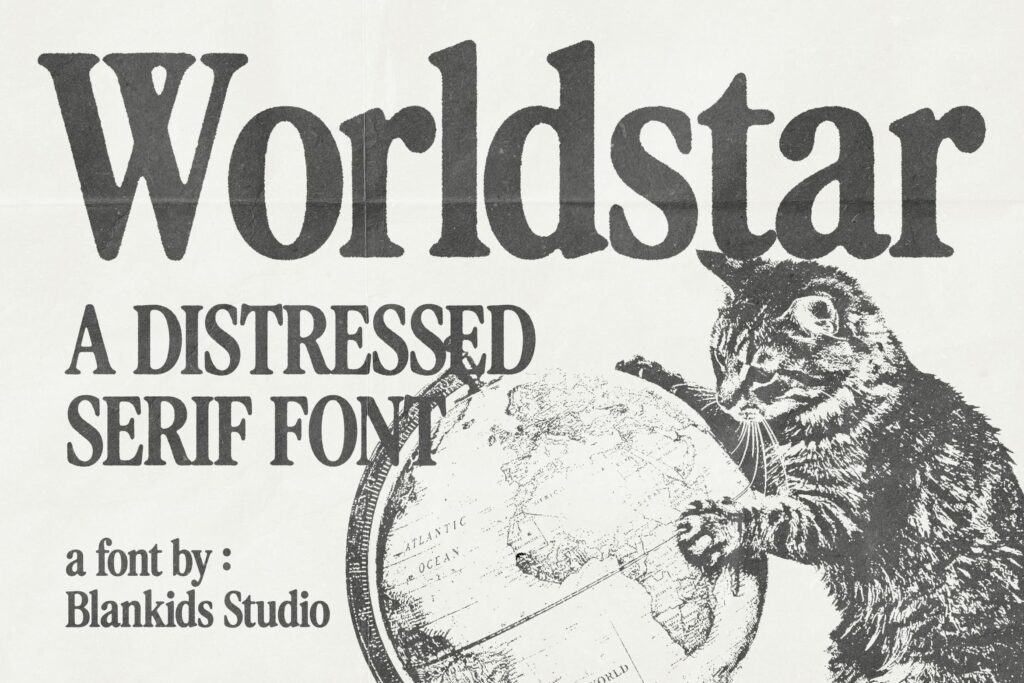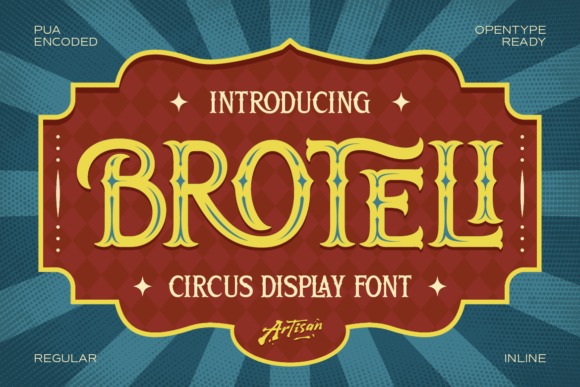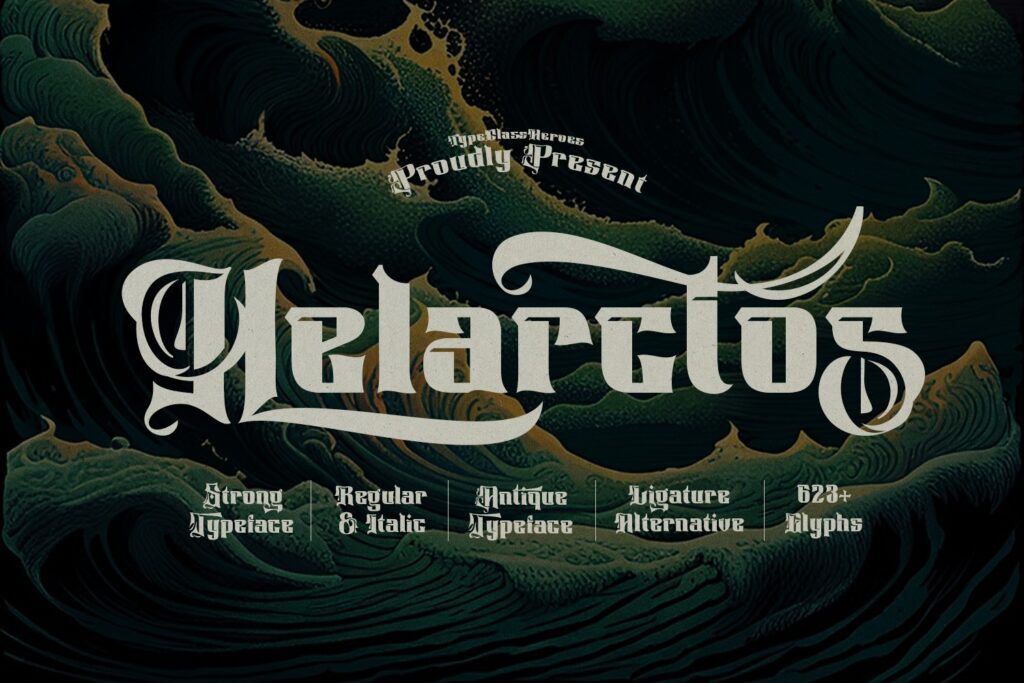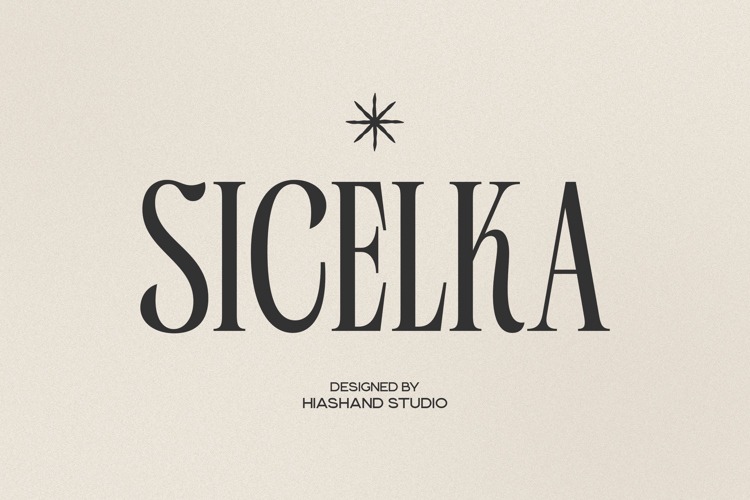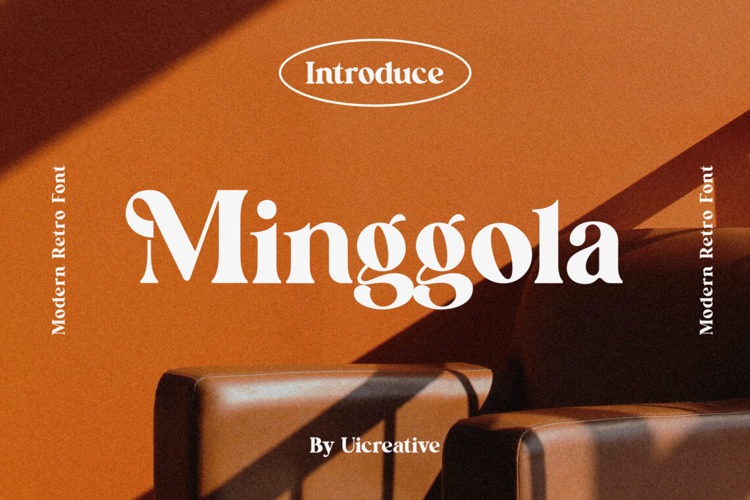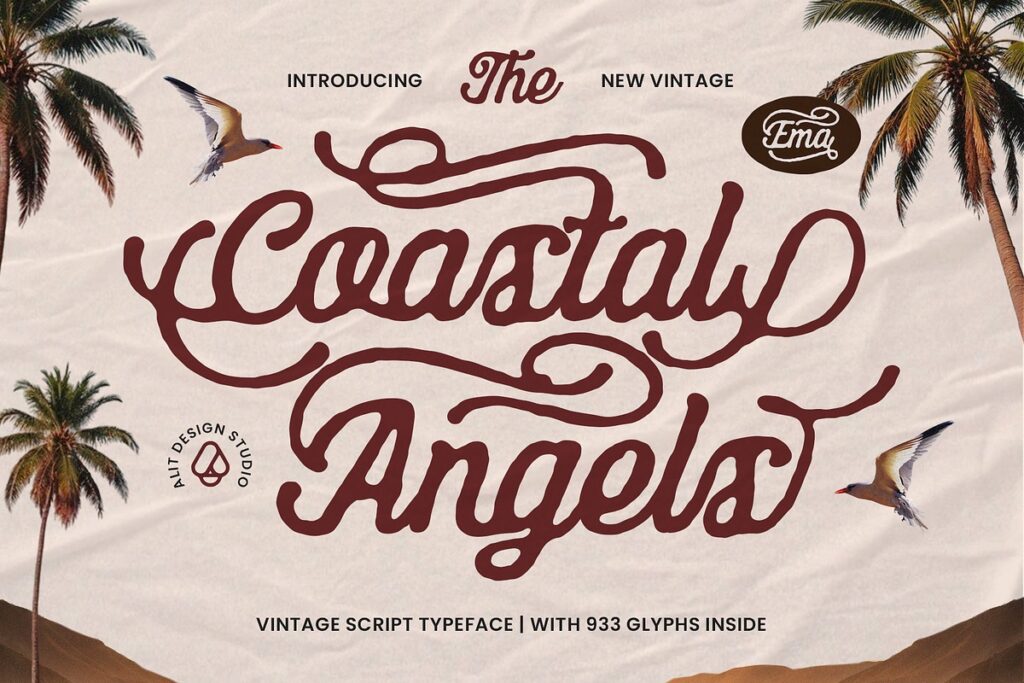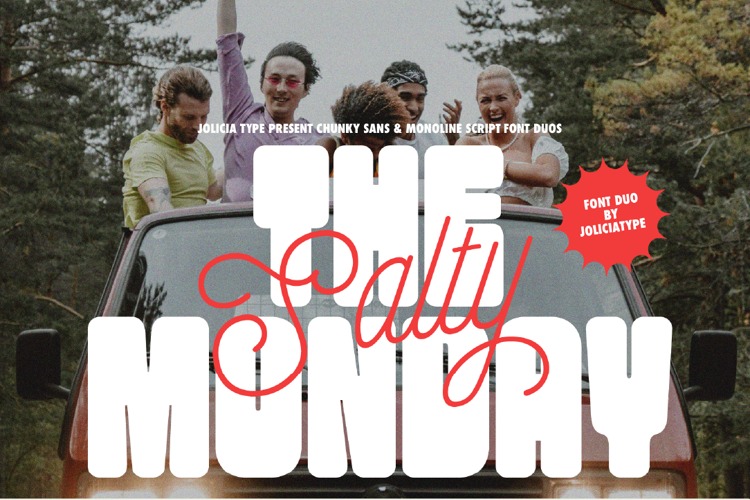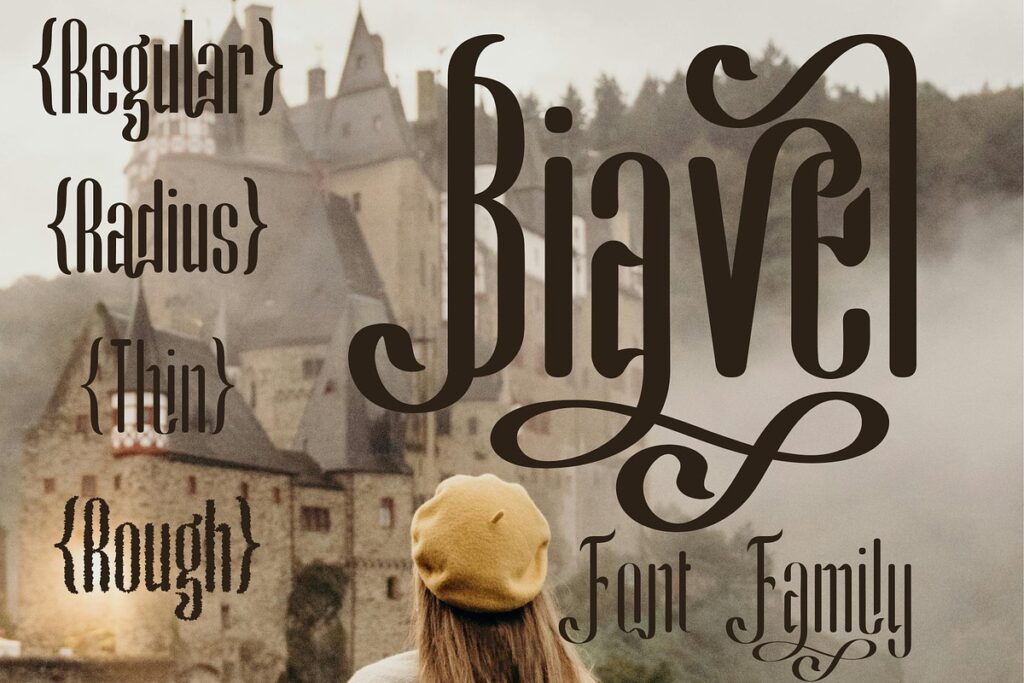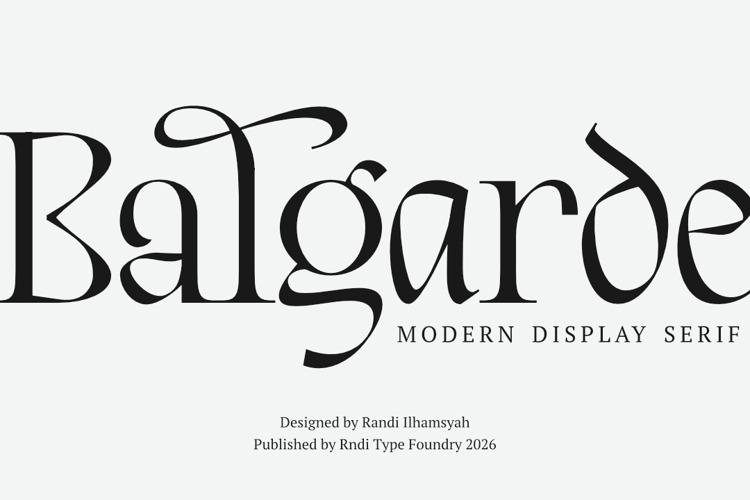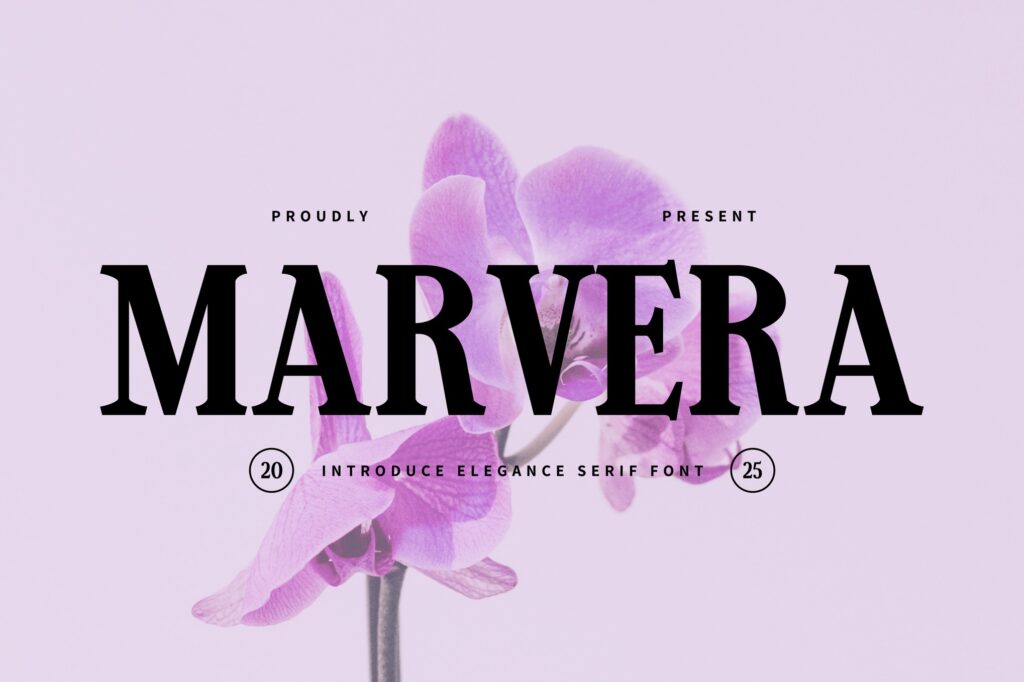
The Gasone – Western Slab Serif Font
The Gasone – Western Slab Serif Font is a professionally designed typeface that delivers clarity, structure, and consistent performance across various design applications. The Gasone | Western Slab Serif, from Denustudios, suitable for any projects such as: logos, branding projects, homeware designs, product packaging, mugs, quotes
Bulldach Lettra – Bold Classic Font
Bulldach Lettra – Bold Classic Font is a distinctive and expressive font crafted to bring personality, structure, and creative energy into your projects. Bulldach Lettra is a blackletter typeface that embodies a bold, classic, and expressive character.
Gildabeth – Diplay Sans Serif Font
Gildabeth – Diplay Sans Serif Font is a versatile font designed to adapt beautifully across different design styles, offering dependable readability and balance. Gildabeth is a narrow, high-contrast sans serif typeface born from the eccentric display faces of the late 19th century and reimagined for today’s loudest, most expressive work
Worldstar – Classic Serif Font
Worldstar – Classic Serif Font is a professionally designed typeface that delivers clarity, structure, and consistent performance across various design applications. Worldstar is a bold distressed serif font that combines timeless vintage elegance with a raw
Broteli – Vintage Diplay Font
Broteli – Vintage Diplay Font is a flexible and reliable font created to fit multiple design needs, from branding and packaging to social media and editorial layouts. Broteli, a bold vintage display font inspired by classic carnival posters, retro signage, and old-school showtime aesthetics.
Helarctos Antique Font
Helarctos Antique Font is a flexible and reliable font created to fit multiple design needs, from branding and packaging to social media and editorial layouts. Helarctos, this font features a classic antique style with a touch of Victorian typography era.
Keviga – Retro Slab Serif Font
Keviga – Retro Slab Serif Font is a flexible and reliable font created to fit multiple design needs, from branding and packaging to social media and editorial layouts. Keviga is slab font stands as a bold and confident expression of typographic design
Sicelka – Classic Serif Font
Sicelka – Classic Serif Font is a clean and thoughtfully built typeface that works seamlessly for both professional branding and everyday creative uses. Sicelka is a sophisticated display serif typeface that epitomizes the intersection of towering architectural grace
Minggola – Classic Serif Font
Minggola – Classic Serif Font is a distinctive and expressive font crafted to bring personality, structure, and creative energy into your projects. Minggola Modern Retro Serif Font. The modern display font feels beautiful classy, elegant, and stylish.
Libston – Vintage Serif Font
Libston – Vintage Serif Font is a flexible and reliable font created to fit multiple design needs, from branding and packaging to social media and editorial layouts. Libston is a vintage serif typeface inspired by Victorian heritage and classic label design.
Coastal Angels – Vintage Script Font
Coastal Angels – Vintage Script Font is a premium-quality font developed to enhance your work with a polished, modern, and visually elevated look. Coastal Angels, a masterfully crafted vintage script typeface designed to bring romance and quiet strength to your creative projects.
The Salty Monday Font Duo
The Salty Monday Font Duo is a professionally designed typeface that delivers clarity, structure, and consistent performance across various design applications. The Salty Monday is a dynamic font duo that blends the bold energy of a chunky sans with the relaxed charm of a monoline script
Biavel – Condensed Diplay Font
Biavel – Condensed Diplay Font is a distinctive and expressive font crafted to bring personality, structure, and creative energy into your projects.Biavel Font is a decorative typeface inspired by classical lettering and traditional European craftsmanship.
Balgarde – Modern Serif Font
Balgarde – Modern Serif Font is a clean and thoughtfully built typeface that works seamlessly for both professional branding and everyday creative uses. Balgarde Serif is a high-contrast display serif with elegant curves and sharp details.